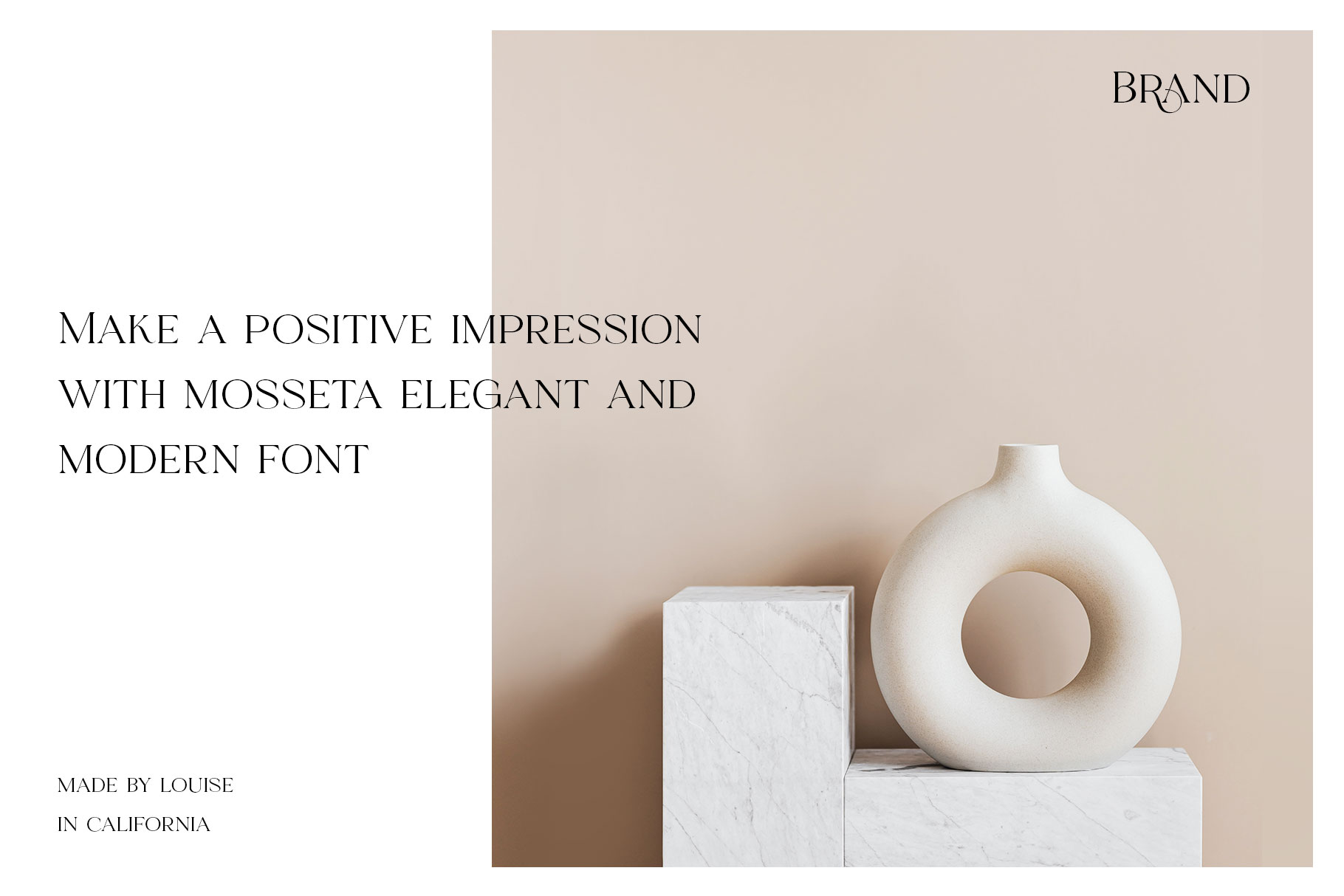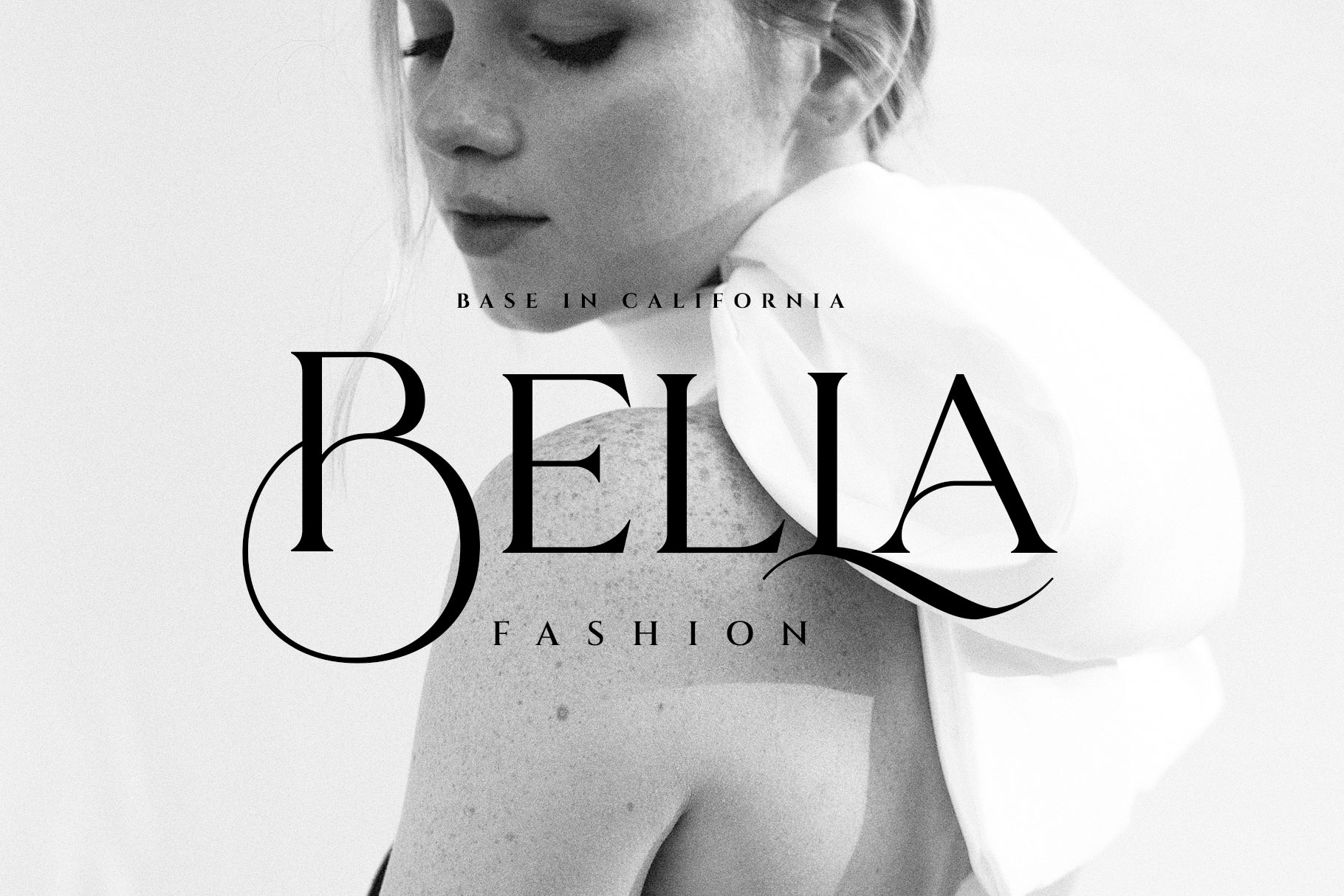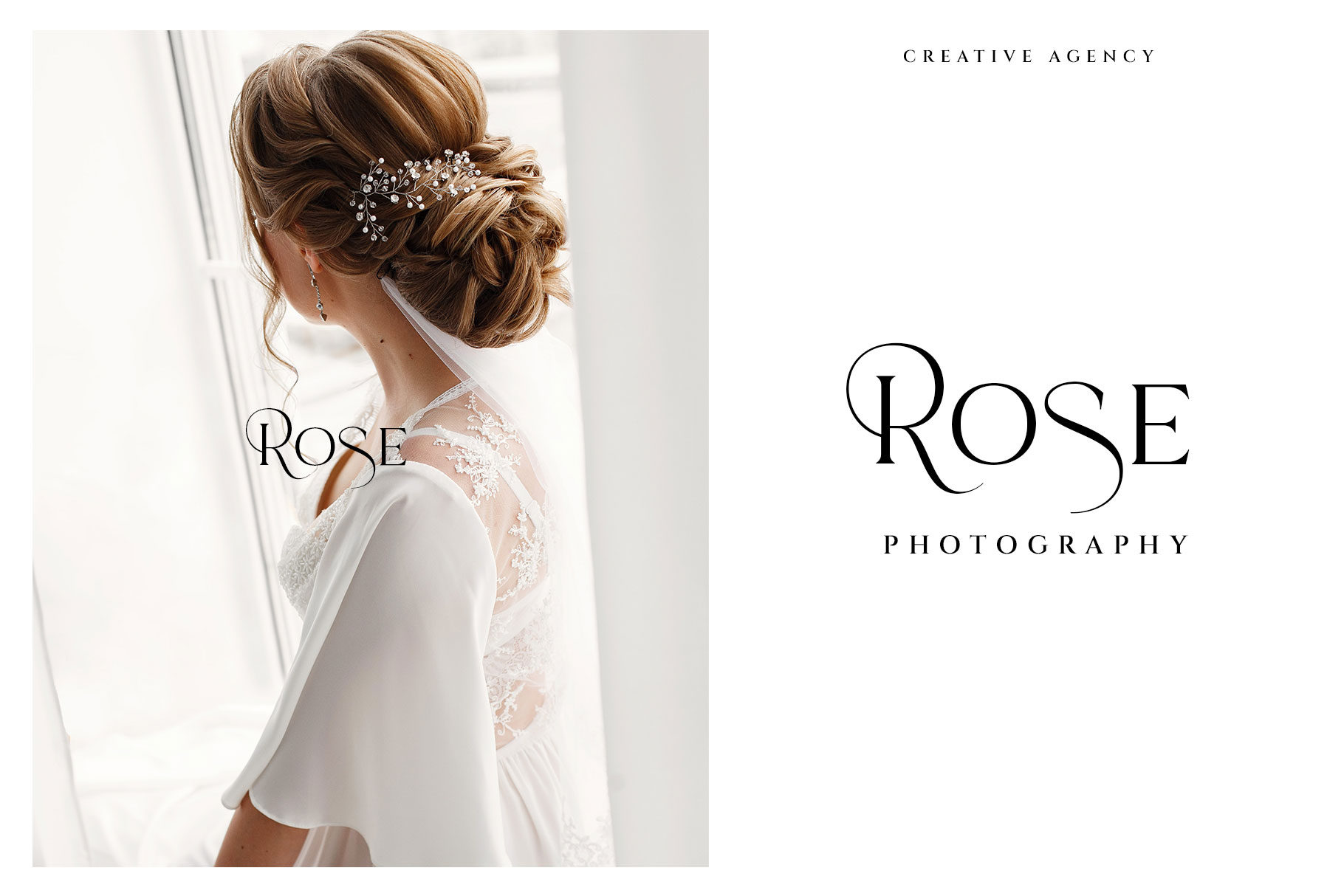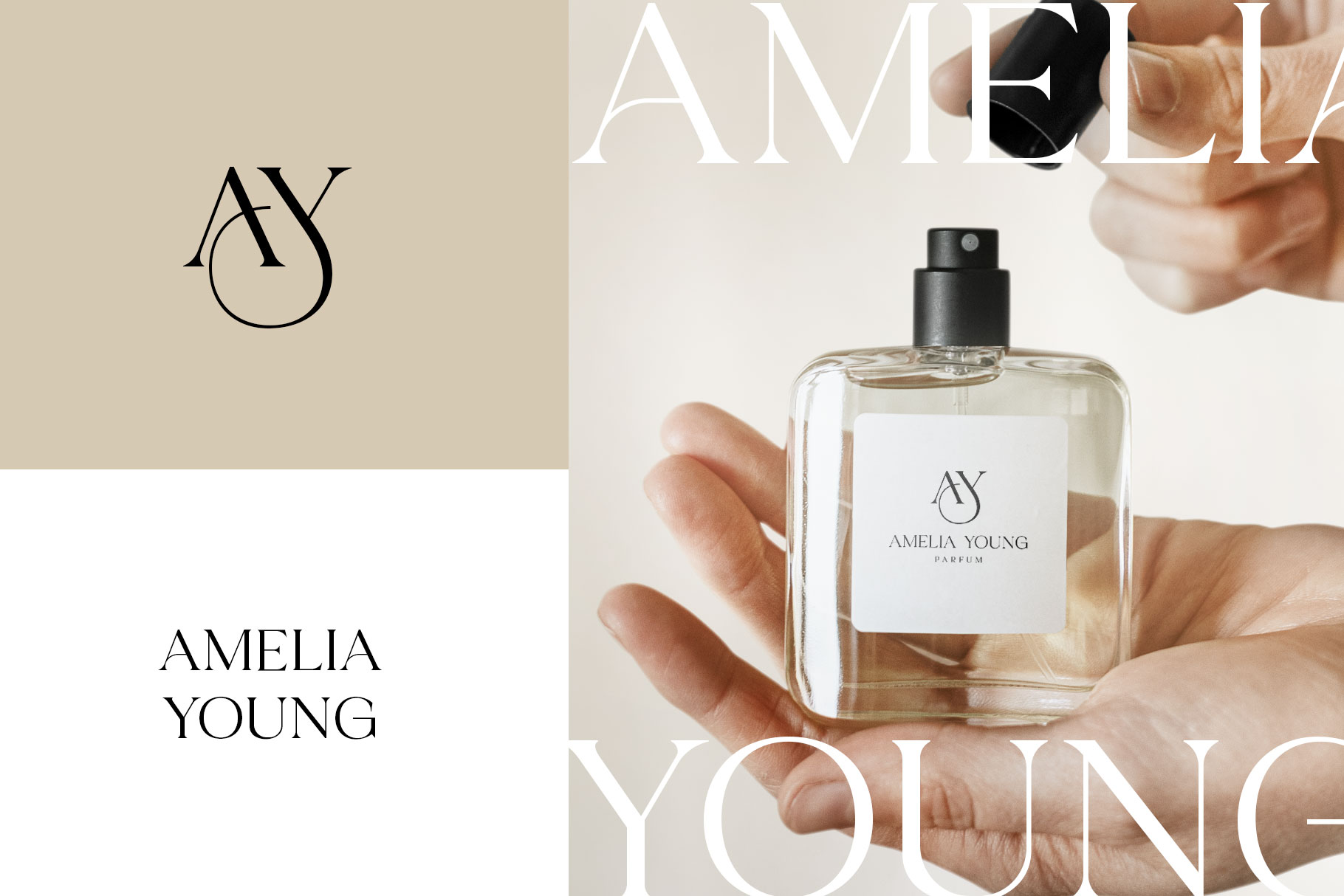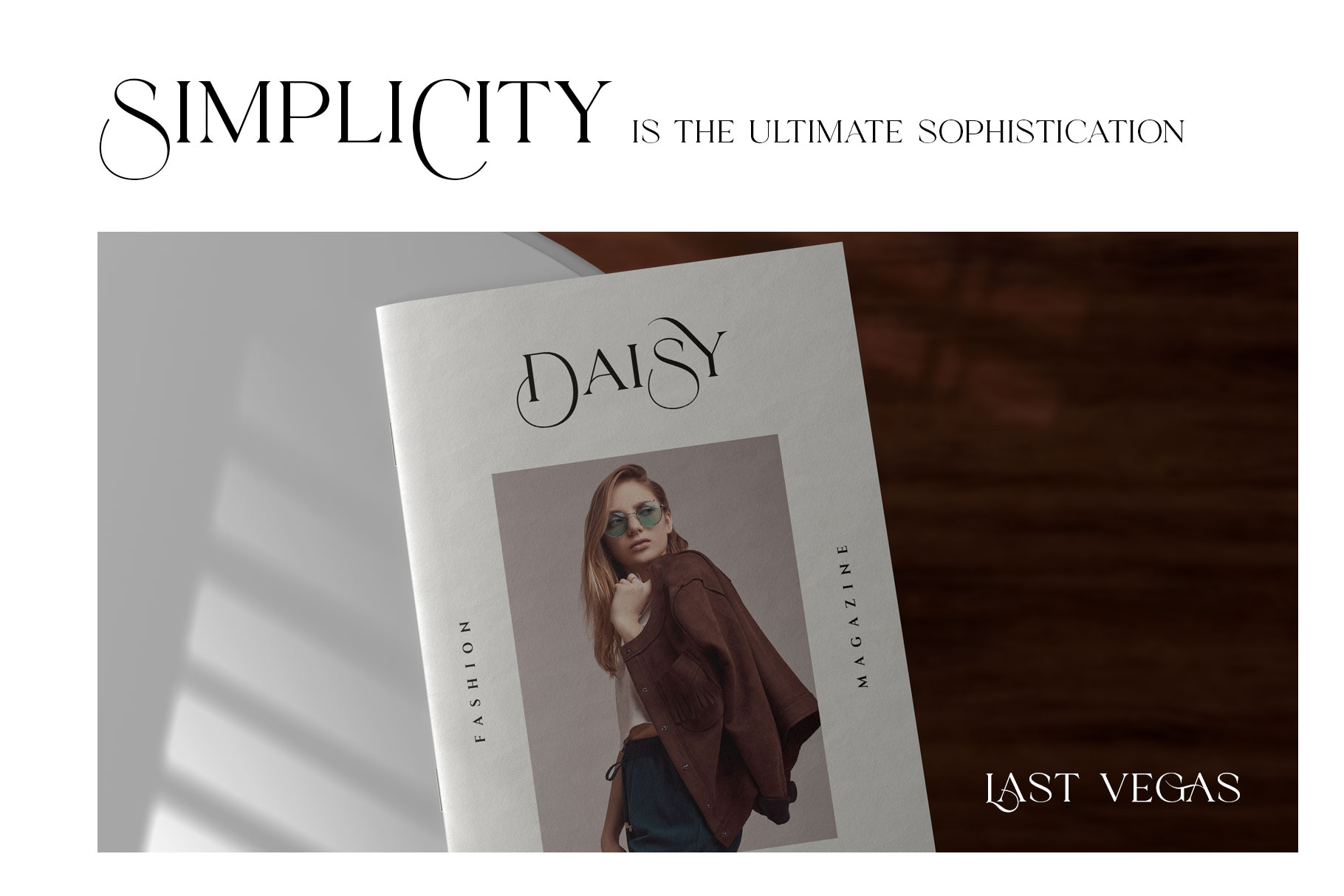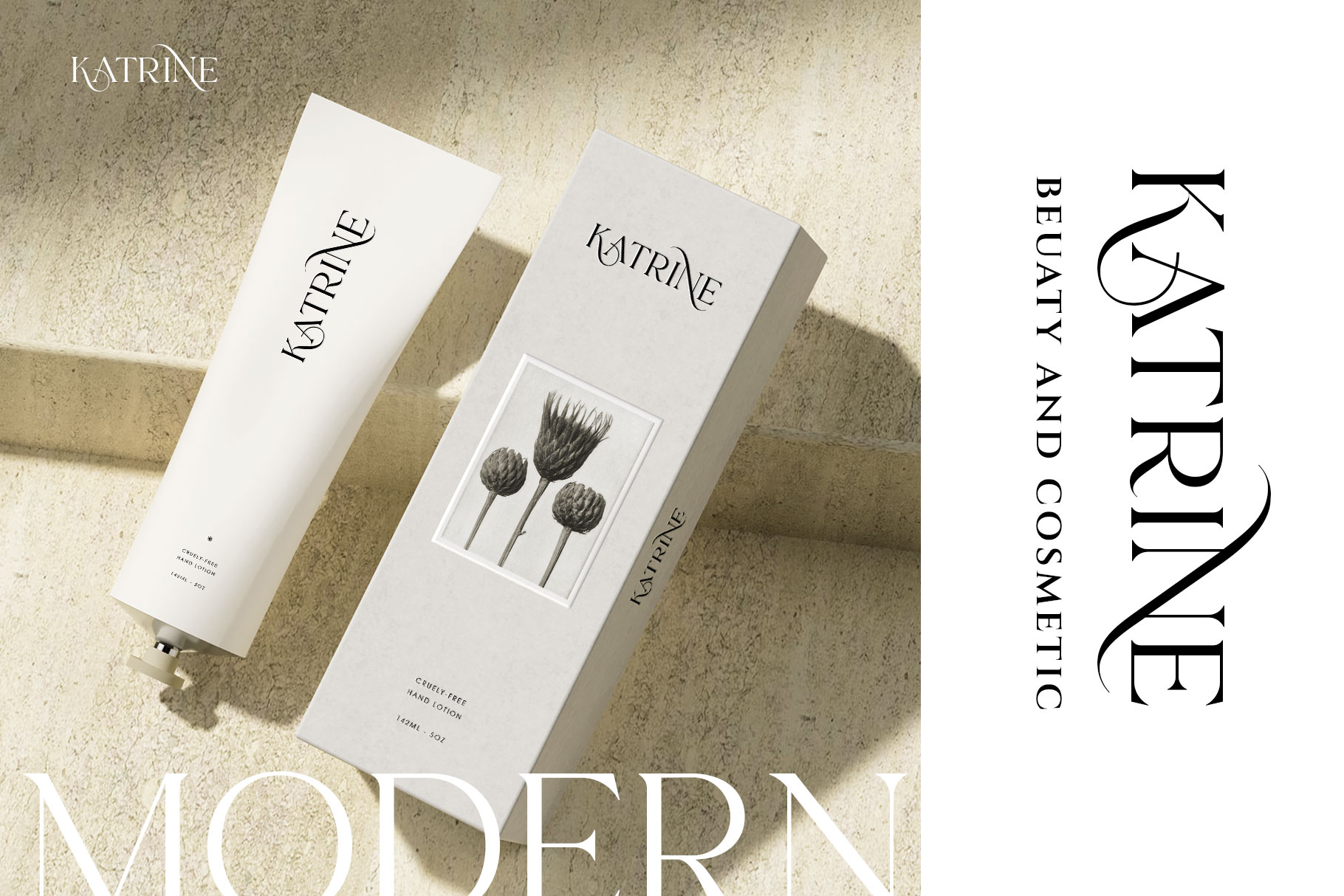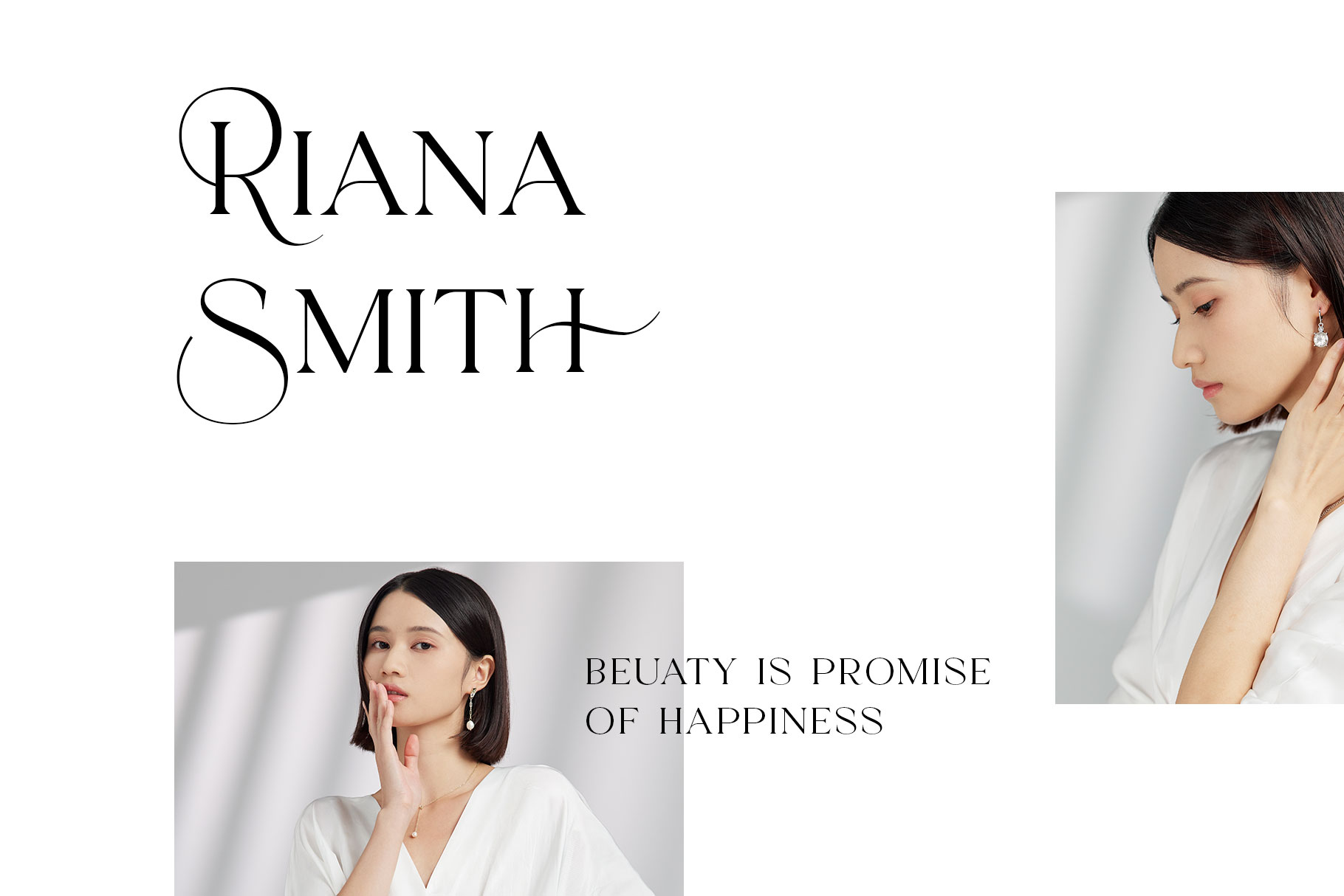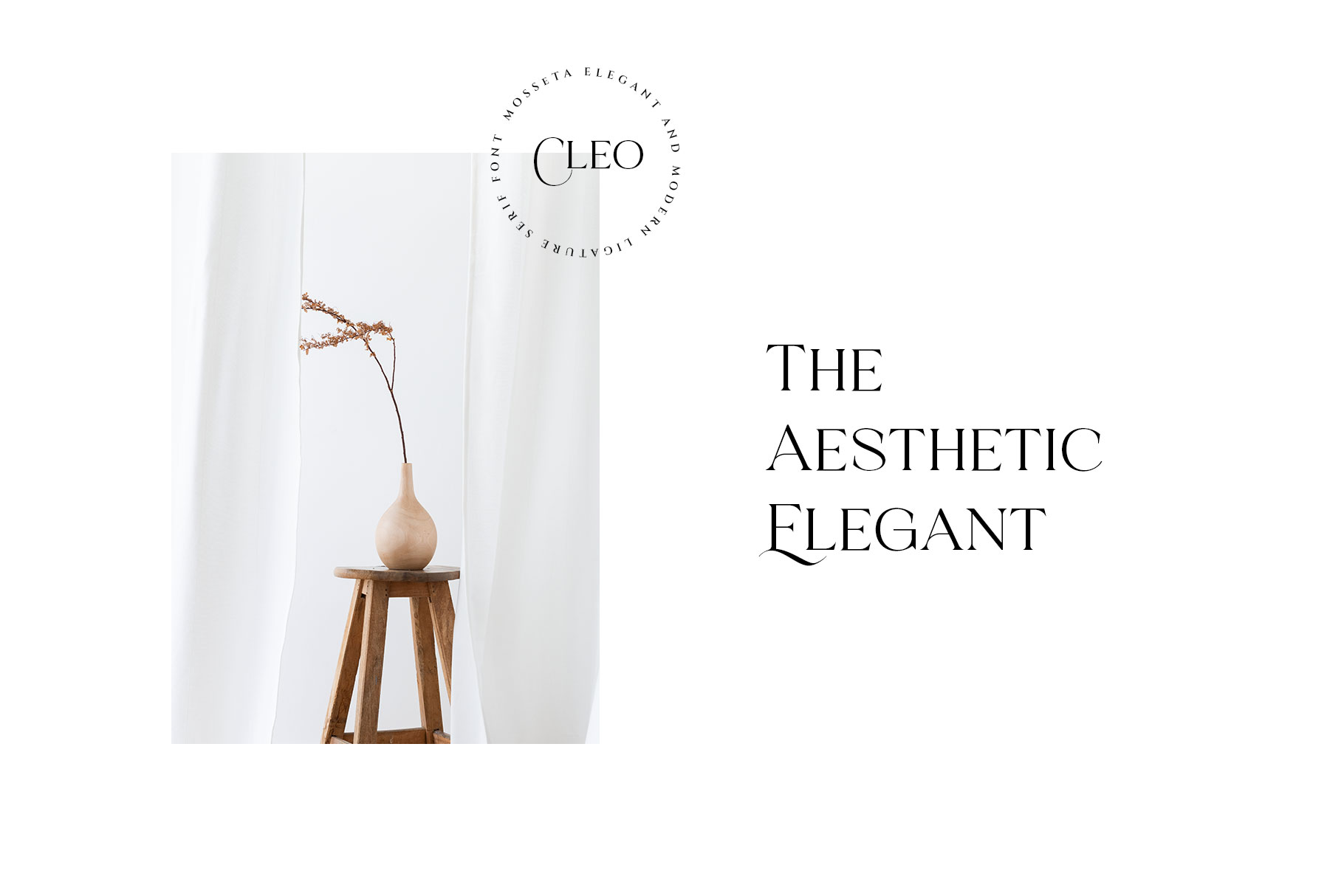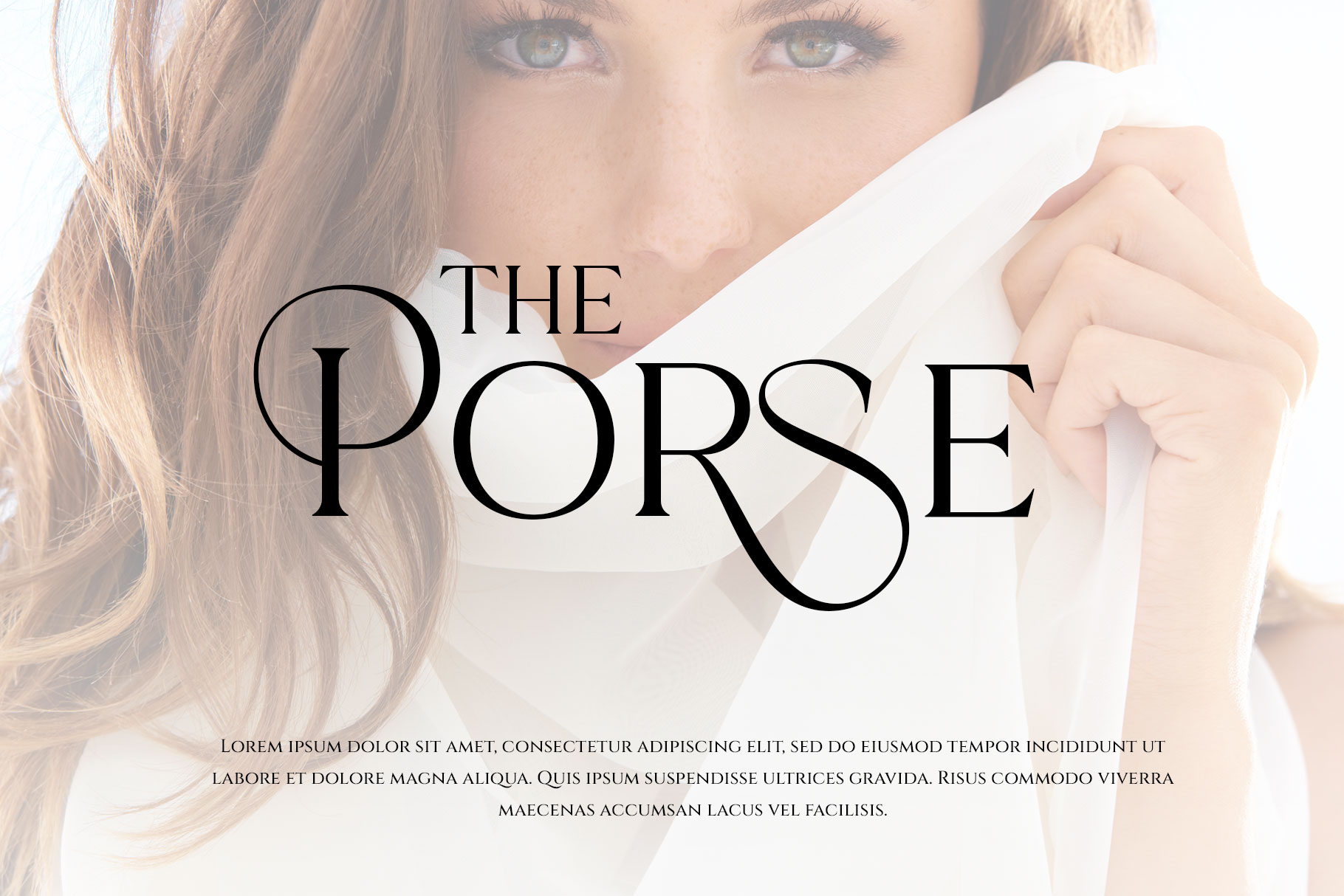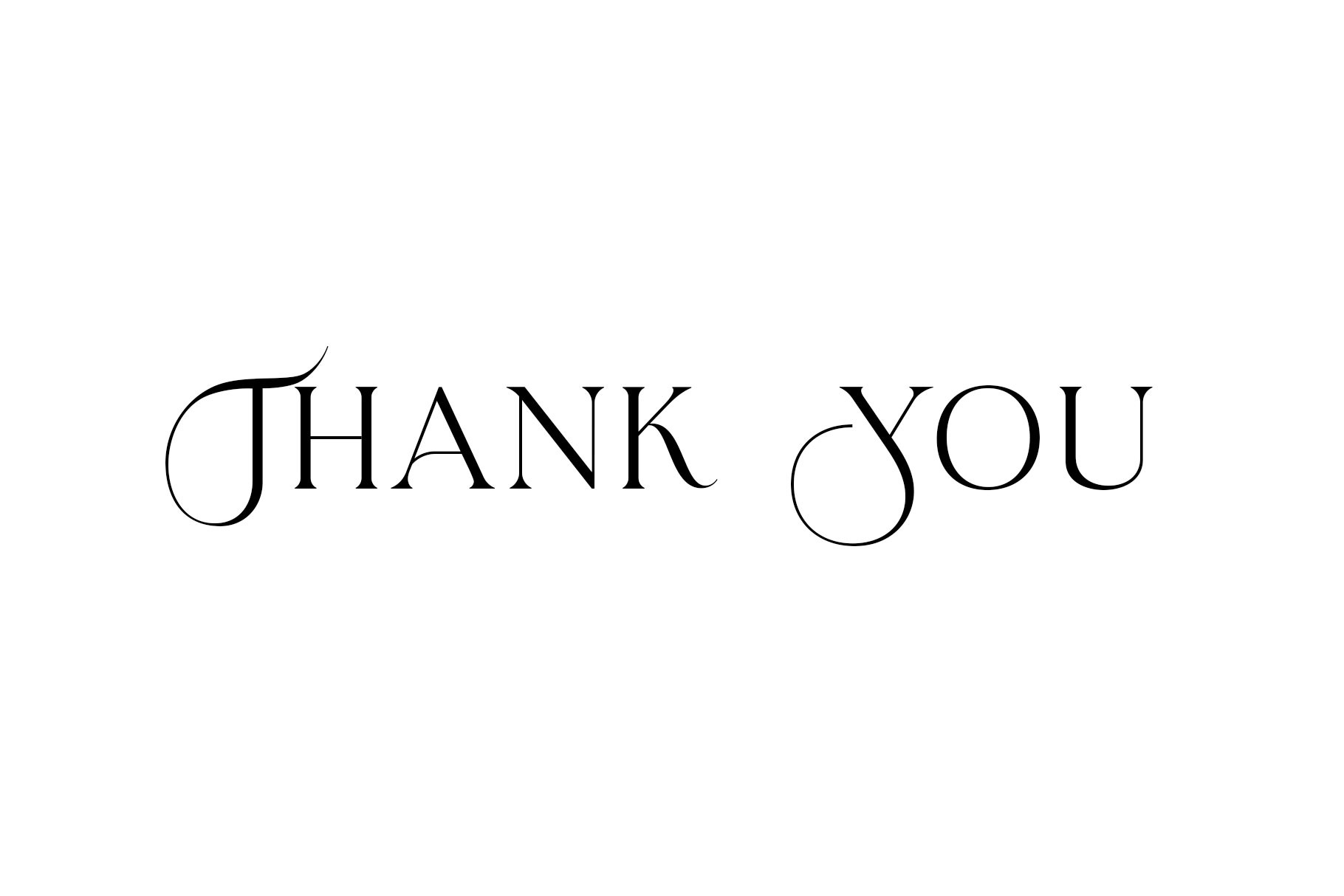
Mosseta A Elegant Ligature Display Font
Mosseta – a modern & elegant display serif with Sophisticated shape, unique alternate and ligature for optional. We love how ligature it look elegant and professional. We keep this font looks fashionable, elegant, luxury, premium, modern, catchy and easy to use.
Mosseta is a perfect choice for any creative endeavor, chic, lifestyle design such as logos, advertisements, watermark on photography, stationery, branding project, display and magazine, invitation, corporate brand, product design, label, business project and many other project need elegant taste.
• Unique and premium Ligature
• Alternate